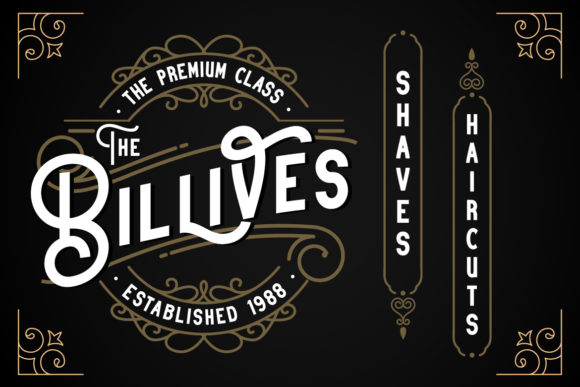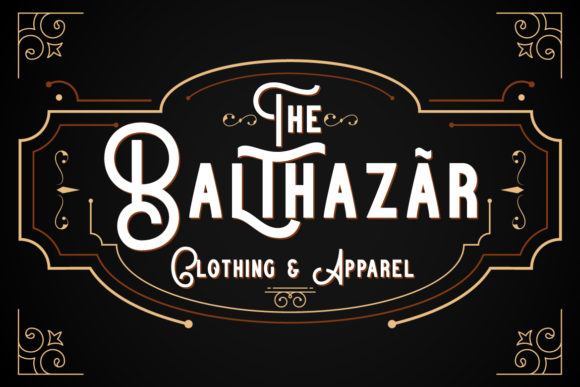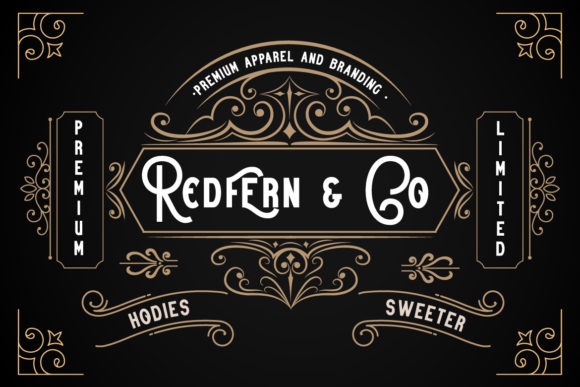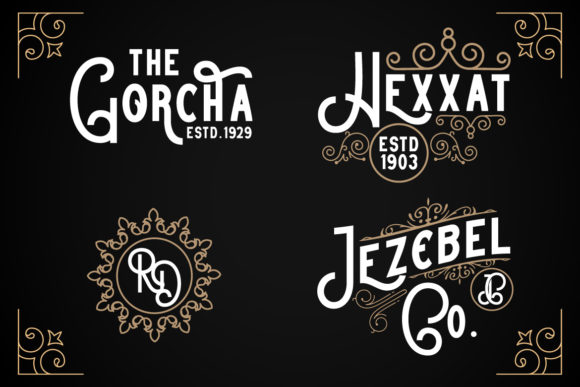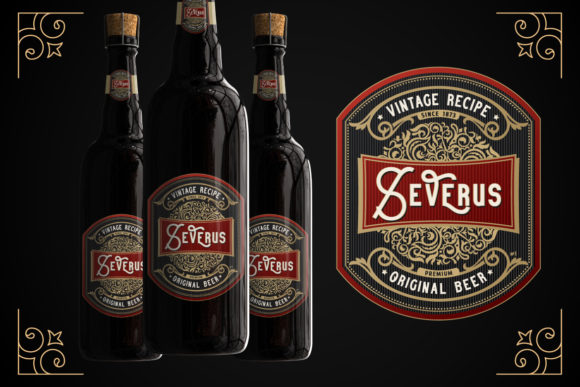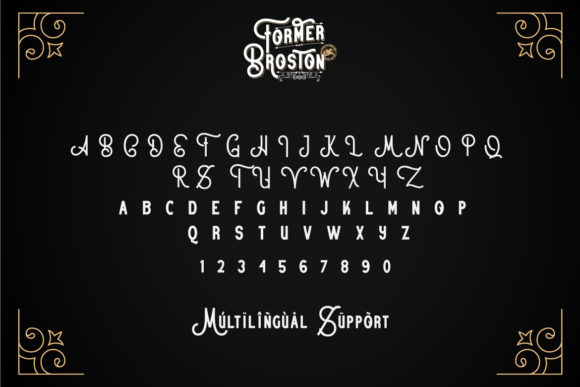
Introducing Former Broston Font: The Bold and Unique Display Font to Elevate Your Creative Projects
In the world of typography, a font can make or break a design. It’s the foundation upon which your creative ideas are built, and the right choice can elevate your project from ordinary to extraordinary. If you’re on the hunt for a bold and unique display font to add some excitement to your designs, look no further than Former Broston Font. In this article, we’ll dive into the world of Former Broston, exploring its features, benefits, and uses, and why it’s a must-have for designers and crafters alike.
What is Former Broston Font?
Former Broston Font is a bold and unique display font designed to make a statement. Its distinctive style and charismatic presence make it the perfect choice for creative projects that demand attention. Whether you’re working on a logo, poster, or social media graphic, Former Broston Font is sure to turn heads. Its bold and eye-catching design makes it ideal for use in titles, headings, and other display text, adding a touch of personality and flair to your designs.
Key Features of Former Broston Font
So, what sets Former Broston Font apart from other display fonts on the market? Here are some of its key features:
- Bold and Unique Design: Former Broston Font boasts a bold and unique design that’s sure to grab attention. Its distinctive style makes it perfect for use in display text, such as titles and headings.
- High-Quality Vector Graphics: As a high-quality vector graphic font, Former Broston Font is scalable to any size without losing its crisp and clean lines.
- Easy to Read: Despite its bold design, Former Broston Font is surprisingly easy to read, making it perfect for use in a variety of creative projects.
- Versatile: Former Broston Font is a versatile font that can be used in a wide range of creative projects, from logos and posters to social media graphics and more.
Benefits of Using Former Broston Font
So, why should you choose Former Broston Font for your next creative project? Here are just a few benefits of using this bold and unique display font:
- Adds Personality to Your Designs: Former Broston Font adds a touch of personality and flair to your designs, setting them apart from the ordinary.
- Grabs Attention: Its bold and eye-catching design makes it perfect for use in titles and headings, grabbing the attention of your audience and drawing them in.
- Elevates Your Brand: By using Former Broston Font in your designs, you can elevate your brand and make it more memorable.
How to Use Former Broston Font
Using Former Broston Font in your creative projects is easy. Here are a few tips to get you started:
- Use it in Titles and Headings: Former Broston Font is perfect for use in titles and headings, adding a touch of personality and flair to your designs.
- Experiment with Different Sizes: Don’t be afraid to experiment with different sizes and styles to find the perfect look for your design.
- Pair it with Other Fonts: Former Broston Font can be paired with other fonts to create a unique and eye-catching design.
In conclusion, Former Broston Font is a bold and unique display font that’s sure to elevate your creative projects. Its distinctive style and charismatic presence make it the perfect choice for designers and crafters looking to add some excitement to their designs. With its high-quality vector graphics, ease of use, and versatility, Former Broston Font is a must-have for anyone looking to take their designs to the next level. So why wait? Download Former Broston Font today and start creating stunning designs that demand attention!